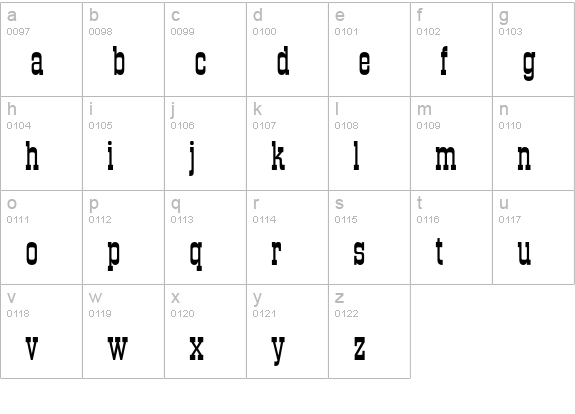
Traktir Font Details
Traktir font is a stunning display typeface that exudes elegance and sophistication. Its bold and unique letterforms command attention, making it perfect for headlines, logo designs, and branding projects. This font combines classic serifs with modern flair, resulting in a harmonious balance of tradition and contemporary style. Traktir font is not only visually striking but also incredibly versatile. Its wide range of weights and styles allows for endless creative possibilities, making it suitable for a variety of design applications. Whether you're designing a luxurious magazine spread, a stylish packaging design, or a professional business card, Traktir font will effortlessly elevate your project to new heights. One of the best things about Traktir font is that it is freely available to download at FontsMarket.com. This means that you can add this exceptional font to your collection without any cost. Whether you're a professional designer or a hobbyist, having access to high-quality fonts like Traktir can significantly enhance your creative endeavors. With its impeccable craftsmanship and attention to detail, Traktir font is sure to make a lasting impression. Its clean lines and refined aesthetics add a touch of sophistication to any design, making it a must-have for anyone looking to create visually stunning and memorable typography. So, don't miss out on this incredible opportunity to enhance your design projects with Traktir font, available for free download at FontsMarket.com.